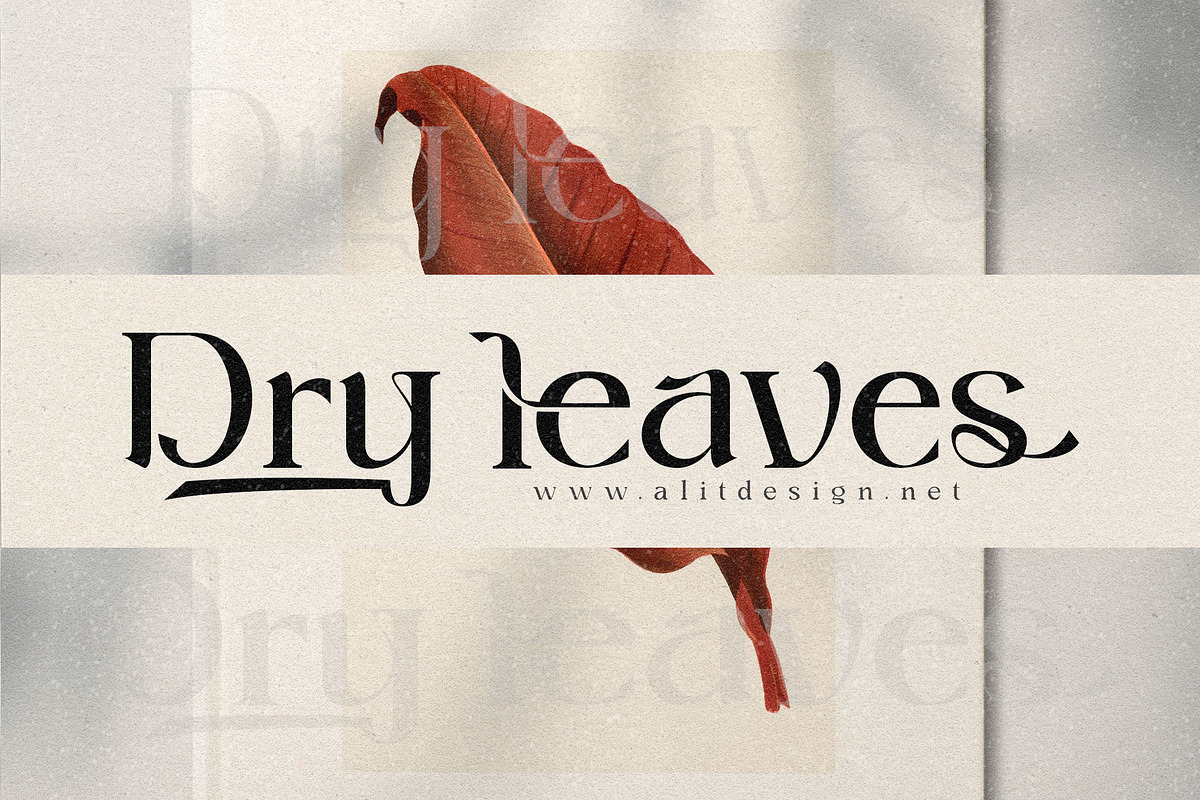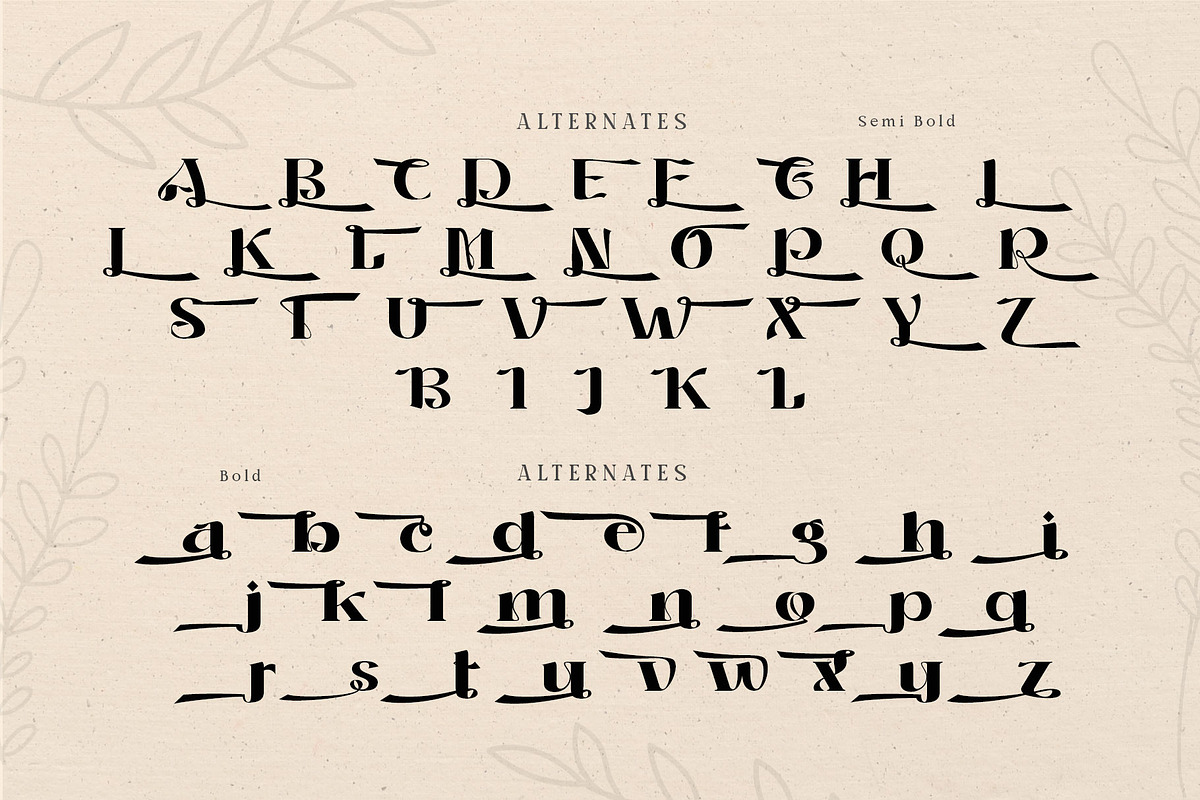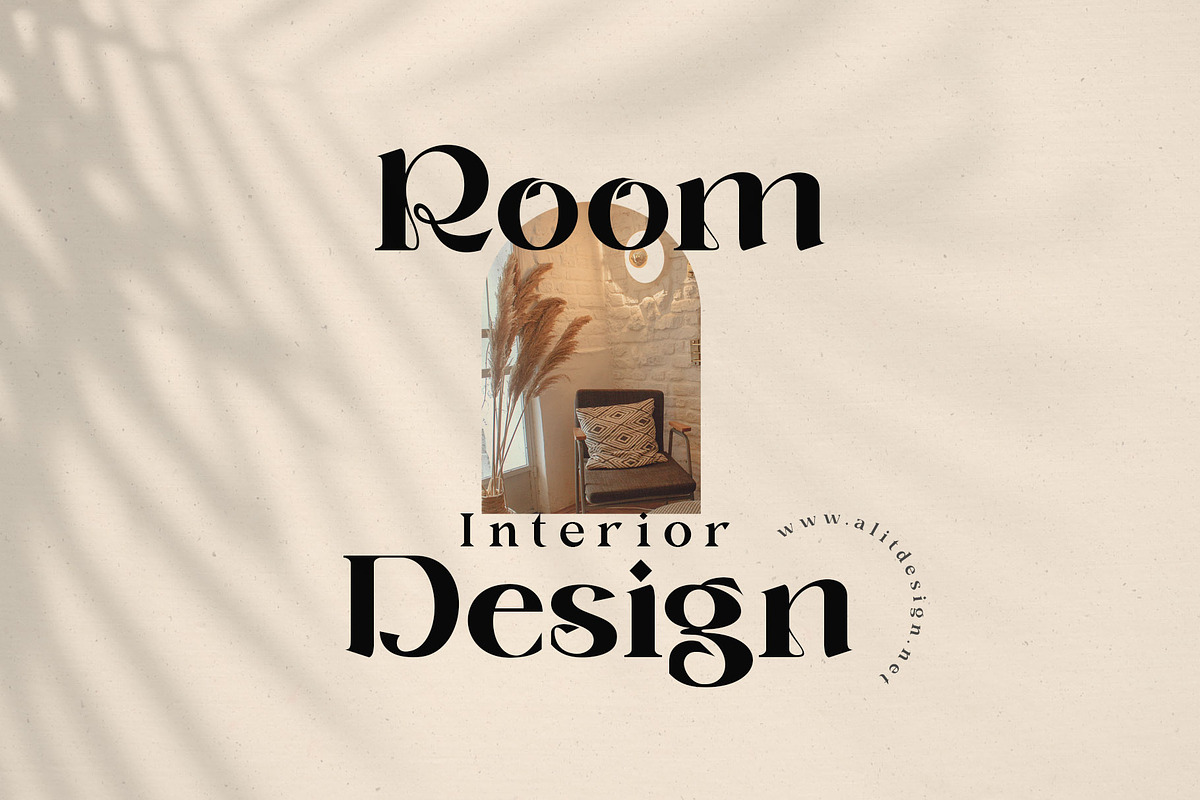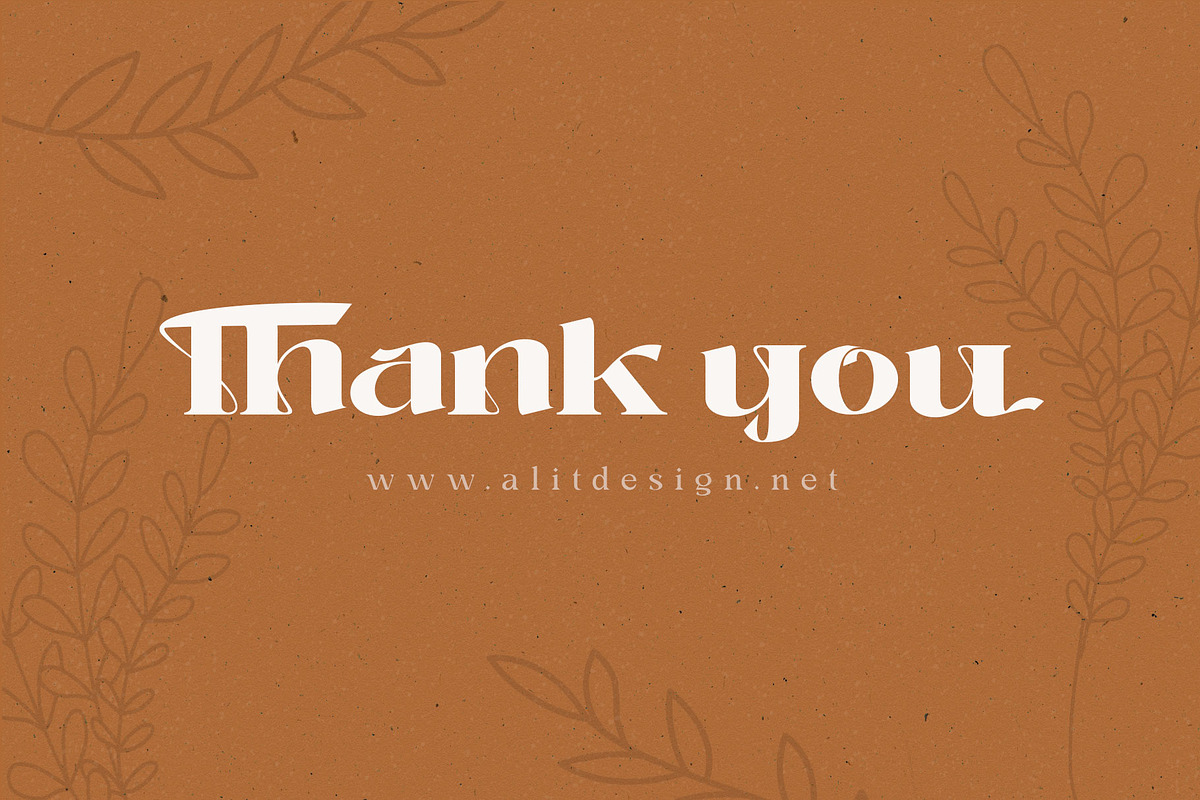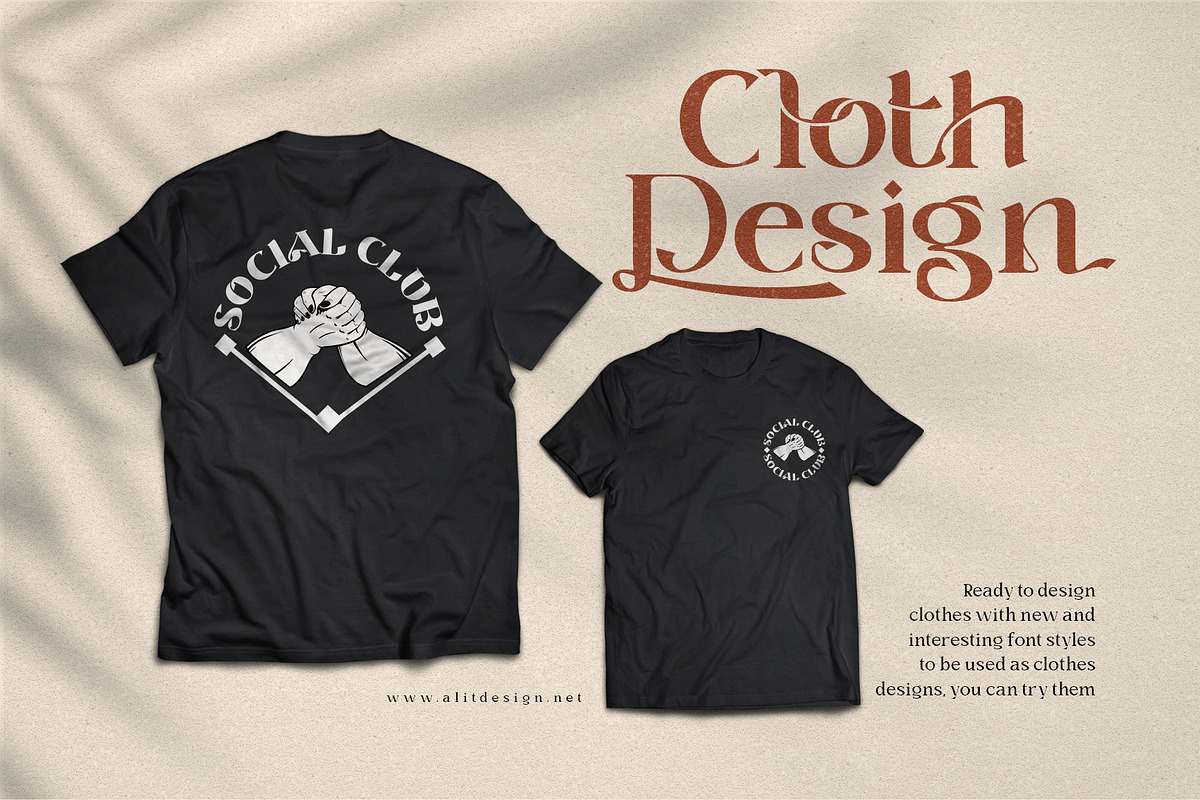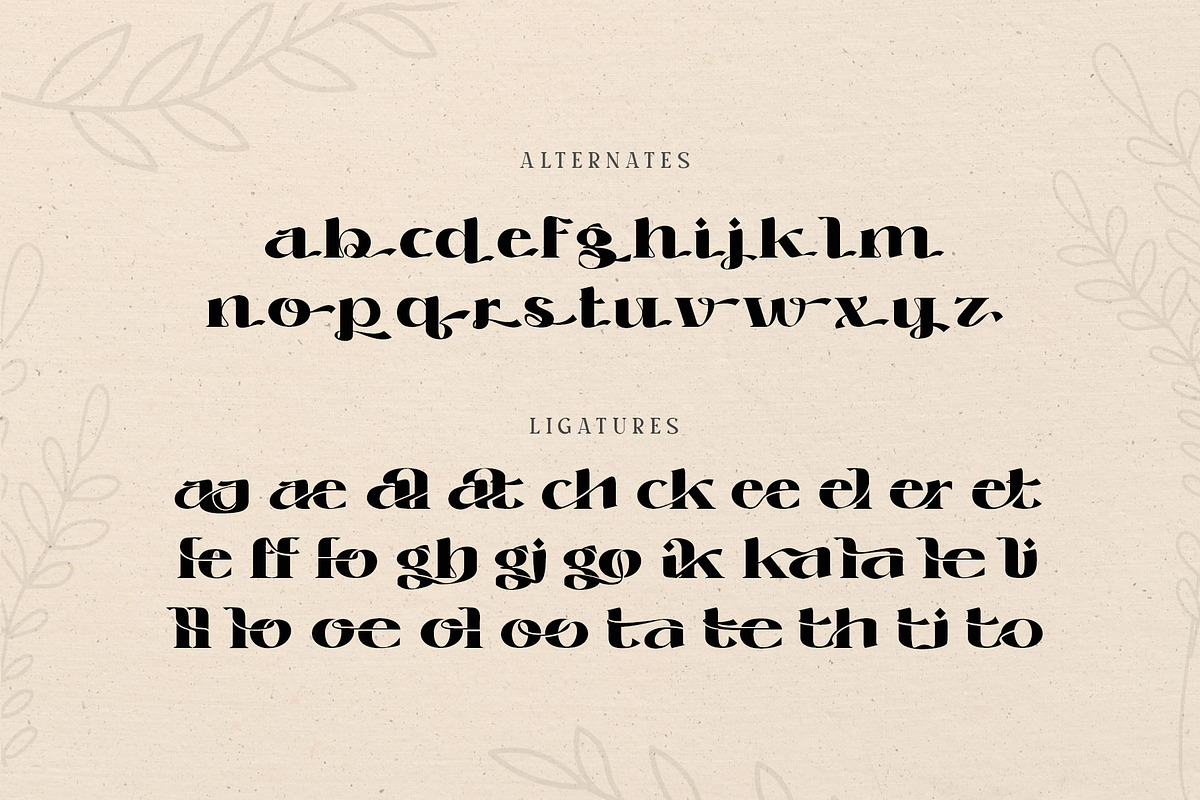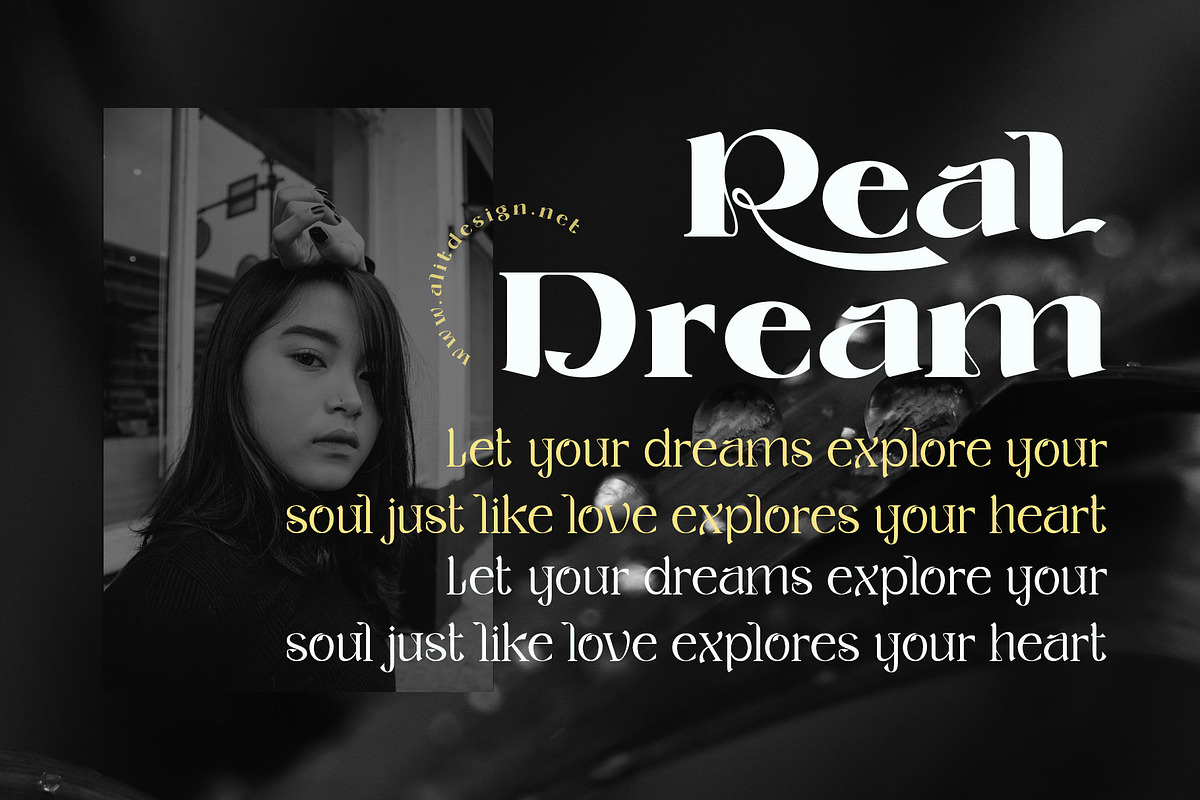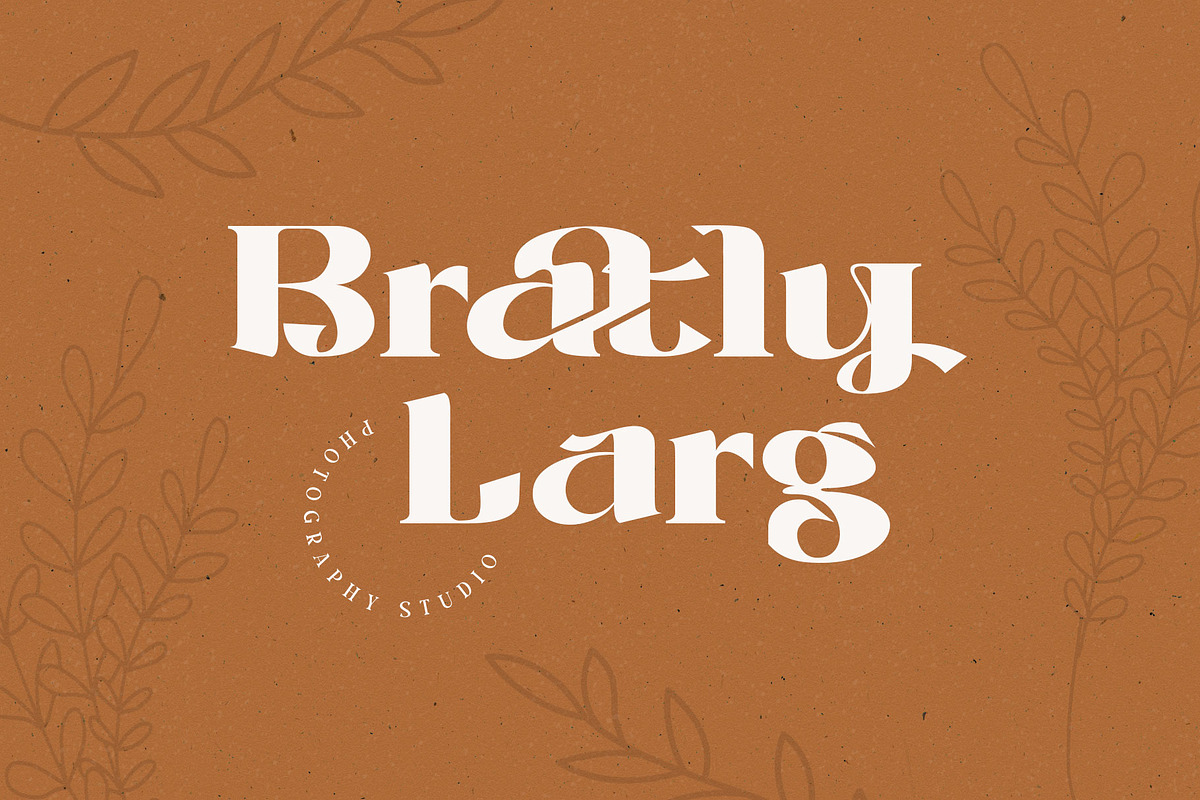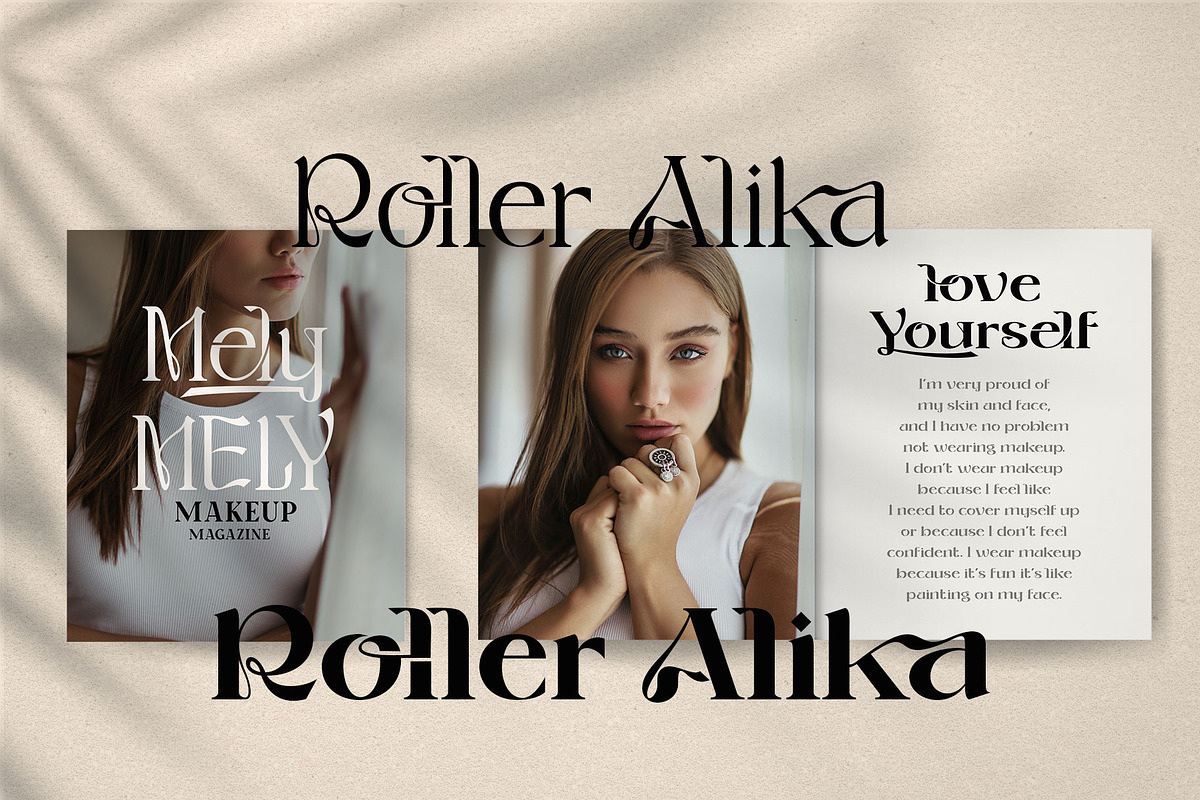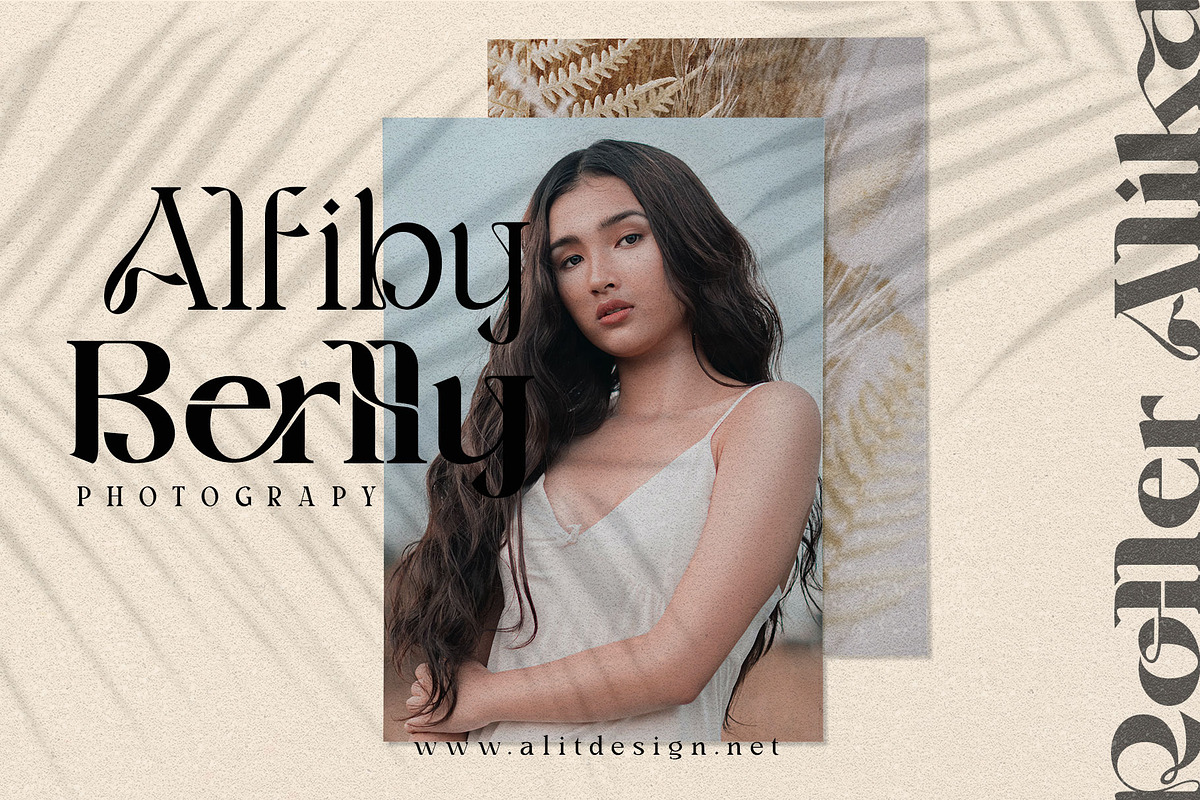
Roller Alika
Roller Alika Typeface
Modern Serif font with swash alternate and distortion style, created from the frequent use of typeface for wedding needs. This font has an elegant and from thin until demi bold family. It is perfect for designs with romantic themes such as wedding properties, Valentine cards, romantic quotes and others.